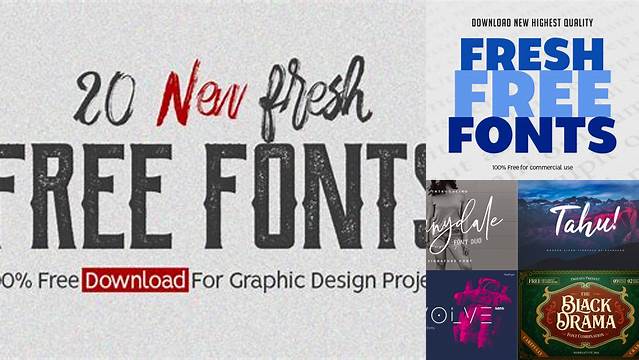
Free Fonts For Graphic Design: Your Ultimate Guide
Hey guys! Are you looking to amp up your graphic design game without breaking the bank? You've come to the right place! In this article, we're diving deep into the world of free fonts for graphic design. Finding the perfect font can be a game-changer, whether you're working on a logo, website, presentation, or any other creative project. We'll explore why typography is so crucial, where to find these hidden gems, and how to use them effectively. So, let's get started and unleash your creative potential with some awesome free fonts!
Why Typography Matters in Graphic Design
Typography is more than just picking a pretty typeface; it's the backbone of visual communication. Think of it as the voice of your design. The right font can convey the right emotion, personality, and message, while the wrong one can make your design fall flat. For example, a playful, rounded font might be perfect for a children's book, but it would look totally out of place on a legal document. Typography can impact readability, create hierarchy, and establish visual identity. It helps guide the viewer's eye, making sure they understand the information you're trying to convey. Using a consistent font family across your designs can also help build brand recognition, making your work instantly identifiable. It's all about creating a cohesive and professional look. Let's break down the key aspects of why typography is so crucial.
Evoking Emotions and Personality
Fonts have the incredible ability to evoke specific emotions and project distinct personalities. A sleek, sans-serif font like Helvetica or Arial can communicate modernity, clarity, and professionalism. On the other hand, a classic serif font like Times New Roman or Garamond can bring a sense of tradition, elegance, and authority. Script fonts, with their flowing, handwritten style, often convey creativity, warmth, and a personal touch. Think about how different fonts are used in branding. A luxury brand might opt for a sophisticated serif font to convey elegance and prestige, while a tech startup might choose a modern sans-serif font to project innovation and simplicity. The font you choose is essentially a character in your design narrative, helping to tell your story and connect with your audience on an emotional level. By carefully selecting fonts that align with your message and brand identity, you can create a powerful and lasting impression. Understanding the psychology of typography is key to making informed decisions that resonate with your target audience.
Enhancing Readability and Legibility
One of the primary functions of typography is to ensure your text is readable and legible. Readability refers to how easily the text can be read in blocks, while legibility is about how easily individual characters can be distinguished from each other. Several factors influence readability, including font size, line height, letter spacing, and contrast between the text and the background. A cluttered or overly decorative font might look interesting, but if it's difficult to read, it defeats the purpose. Legibility is crucial for ensuring that each letter is clear and distinct, especially in smaller sizes or in body text. Choosing fonts that have well-defined letterforms and adequate spacing will significantly improve the reading experience. For example, fonts with a large x-height (the height of lowercase letters) tend to be more legible than those with a small x-height. It's also essential to consider the context in which the text will be read. For on-screen reading, sans-serif fonts are often preferred for their clean, modern appearance and legibility on digital devices. However, for print materials, serif fonts can enhance readability by guiding the eye across the page. By prioritizing readability and legibility, you ensure that your message is easily understood and that your audience can engage with your content effectively.
Establishing Visual Hierarchy
Visual hierarchy is a critical aspect of design, and typography plays a significant role in establishing it. Hierarchy helps guide the viewer's eye through the content, highlighting the most important elements and creating a clear structure. By using different font sizes, weights, and styles, you can create a visual hierarchy that makes your design more organized and engaging. For example, headings are typically larger and bolder than body text, making them stand out and indicating the start of a new section. Subheadings, in turn, are smaller than headings but larger than body text, providing additional structure and clarity. Using different font weights, such as bold or italic, can also help emphasize certain words or phrases within the text. Color is another powerful tool for creating hierarchy; brighter or contrasting colors can draw attention to key elements. By carefully considering the visual hierarchy, you can ensure that your audience can quickly grasp the main points of your message and navigate your design with ease. A well-defined hierarchy not only improves the aesthetic appeal of your design but also enhances its functionality and effectiveness.
Where to Find Graphic Design Free Fonts
Alright, let's get to the good stuff – where can you find these amazing free fonts? There are tons of resources out there, but not all of them are created equal. You want to make sure you're downloading fonts from reputable sources to avoid any licensing issues or even malware. Here are some of my favorite places to find high-quality free fonts for your graphic design projects:
Google Fonts is a fantastic resource for designers, offering a vast library of over a thousand free and open-source fonts. The great thing about Google Fonts is that all the fonts are web-friendly, meaning they're optimized for use on websites and can be easily embedded using a simple code snippet. The website itself is user-friendly, allowing you to filter fonts by category, style, and language. You can also preview the fonts in different sizes and styles, making it easy to find the perfect one for your project. Each font family on Google Fonts comes with detailed information about its designer, history, and usage, which can be helpful in understanding the font's context and intended purpose. Plus, Google Fonts is constantly updated with new additions, so there's always something fresh to discover. Whether you're working on a website, presentation, or print design, Google Fonts is an excellent place to start your font search. The fact that all fonts are open-source means you can use them freely for both personal and commercial projects without worrying about licensing fees. This makes Google Fonts an invaluable resource for designers of all levels.
Font Squirrel is another excellent website for discovering high-quality free fonts, with a particular focus on commercial-use fonts. This means that all the fonts available on Font Squirrel are licensed for commercial projects, giving you peace of mind when using them in your work. The site boasts a curated collection of fonts, ensuring that you'll only find top-notch typefaces. Font Squirrel also offers a handy "Font Identifier" tool, which can help you identify a font from an image. This is a great feature if you come across a font you love but don't know its name. The website's interface is clean and easy to navigate, allowing you to browse fonts by category, tags, and even specific foundries. Each font listing includes detailed information about the font's license, designer, and available styles, as well as sample text to give you a better idea of how the font looks in context. Font Squirrel also provides a useful "Webfont Generator" tool, which allows you to convert desktop fonts into web-friendly formats, ensuring optimal performance on websites. Overall, Font Squirrel is a valuable resource for designers looking for free fonts that are suitable for both personal and commercial projects, with a strong emphasis on quality and licensing clarity.
DaFont is a massive online archive of fonts, offering a vast selection of free typefaces in various styles and categories. This website is a go-to resource for many designers looking for unique and creative fonts, but it's essential to pay close attention to the licensing information for each font. While many fonts on DaFont are free for personal use, commercial use may require a license or permission from the font's creator. The site's user-friendly interface allows you to browse fonts by category, such as fancy, foreign look, techno, gothic, basic, script, and more. You can also preview fonts with your own text, making it easy to see how they will look in your designs. DaFont's extensive collection includes everything from classic serif and sans-serif fonts to whimsical display fonts and hand-drawn styles. However, because DaFont is a community-driven platform, the quality of fonts can vary. It's always a good idea to download fonts from reputable designers and check the font files for any issues before using them in your projects. Despite the need for careful vetting, DaFont remains a popular and valuable resource for designers seeking a wide range of free fonts for their creative endeavors.
Tips for Using Free Fonts Effectively
Okay, you've found some awesome free fonts – now what? Just downloading a font doesn't guarantee a great design. You need to know how to use them effectively. Here are some tips to help you make the most of your free font finds:
Limit the Number of Fonts
One of the most crucial tips for effective typography is to limit the number of fonts you use in a single design. A common guideline is to stick to a maximum of two or three fonts. Using too many fonts can create a cluttered and confusing visual experience, making your design look unprofessional and disjointed. Each font carries its own personality and style, and when you mix too many, they can clash and compete for attention. Instead, focus on selecting a primary font for headings and a secondary font for body text. These two fonts should complement each other, creating a cohesive and harmonious look. For example, you might pair a bold sans-serif font for headings with a clean serif font for body text. By limiting your font choices, you can create a more unified and professional design. If you need additional variation, consider using different weights and styles within the same font family, such as bold, italic, and light. This will provide visual interest while maintaining consistency and readability. Remember, simplicity is often key to effective design.